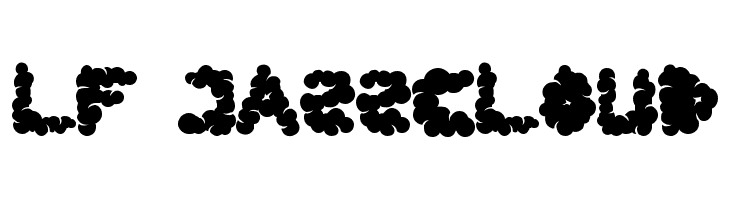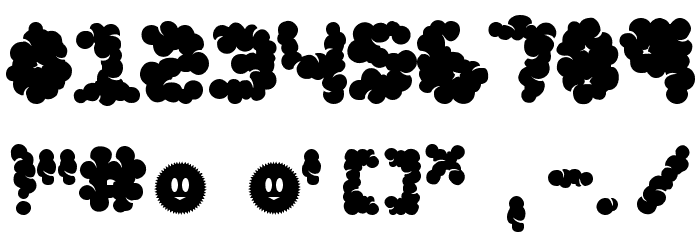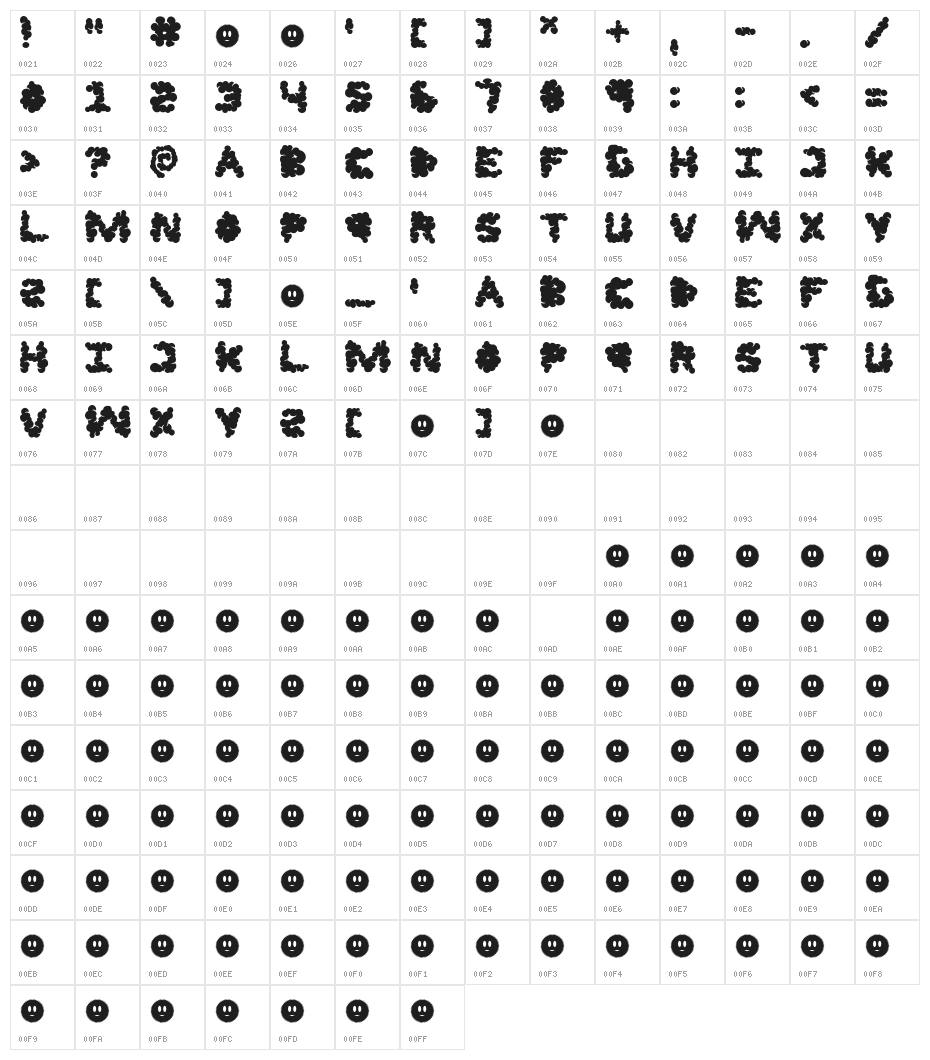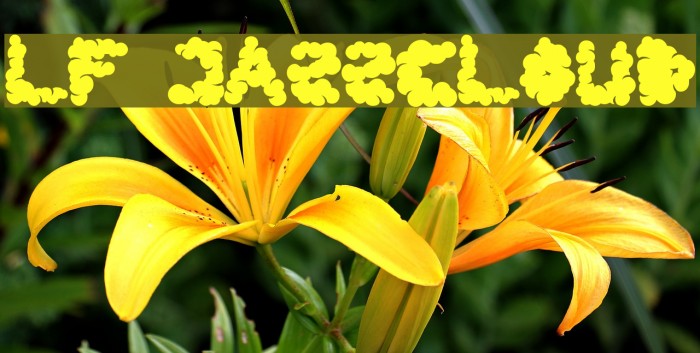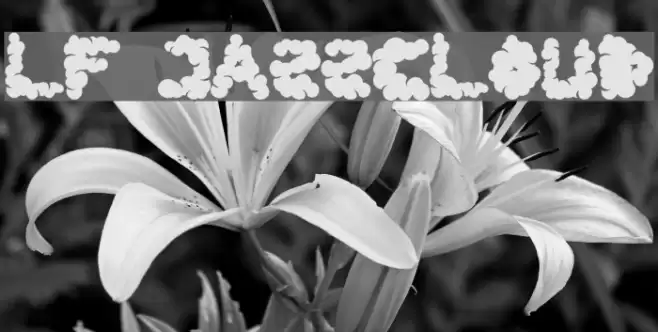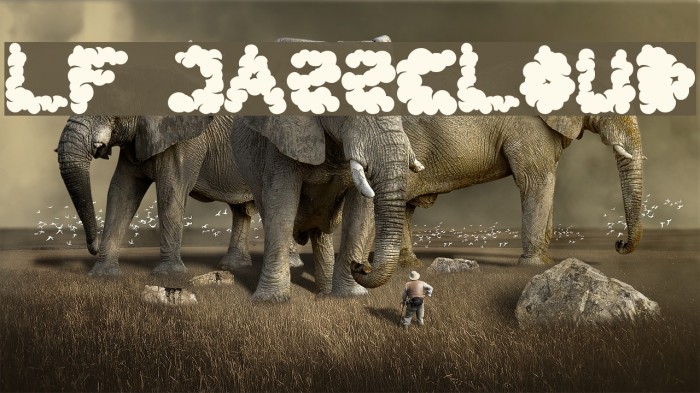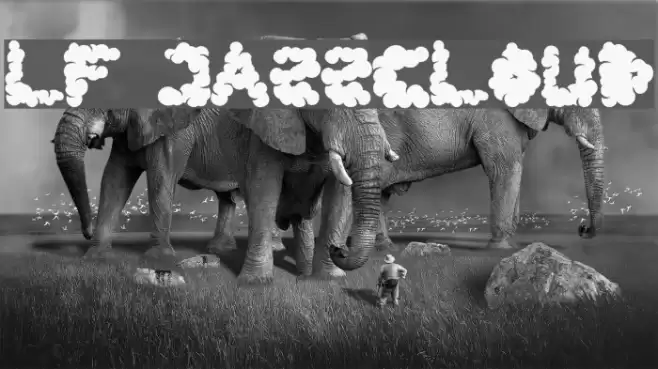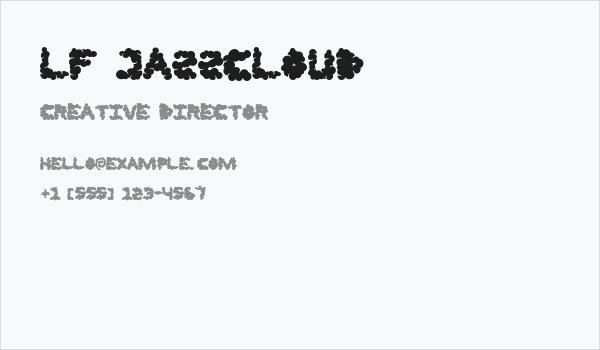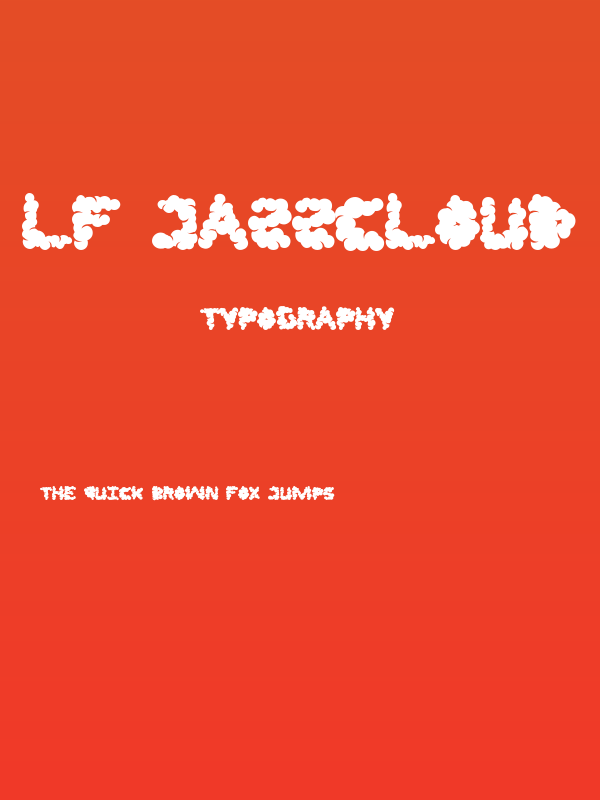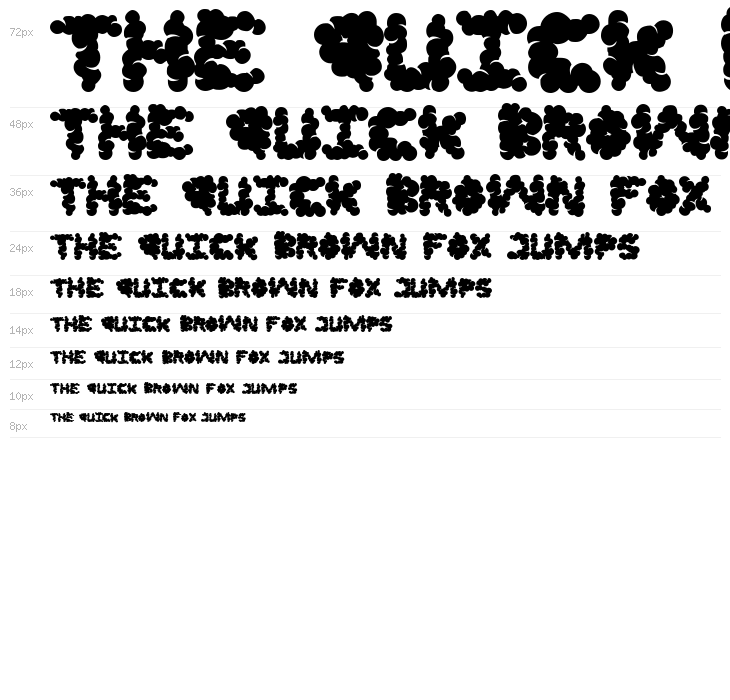
LF Jazzcloud Font
LF Jazzcloud Description
This font features a playful and whimsical design, characterized by its cloud-like, bubbly appearance. Each character is composed of overlapping circular shapes, creating a soft and fluffy texture. The font maintains a consistent thickness throughout, giving it a cohesive and uniform look. Its unique style makes it stand out, offering a sense of fun and creativity. The rounded edges and lack of sharp angles contribute to its friendly and approachable feel. This font is ideal for projects that require a touch of lightheartedness and imagination.